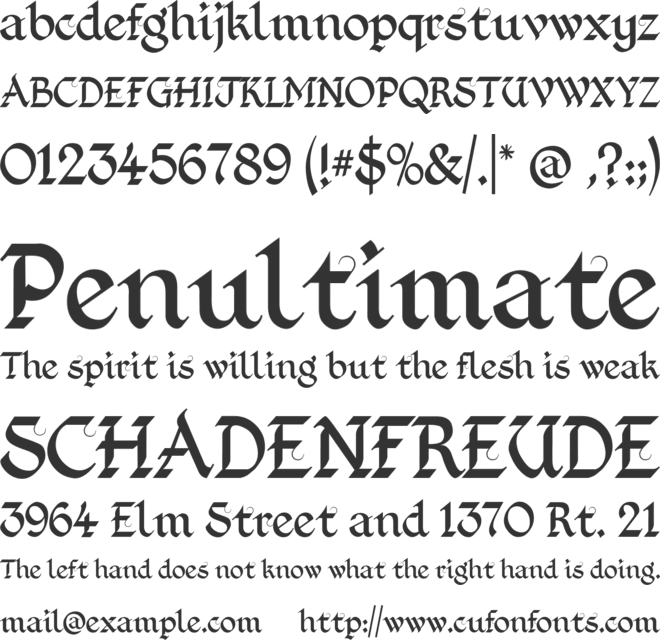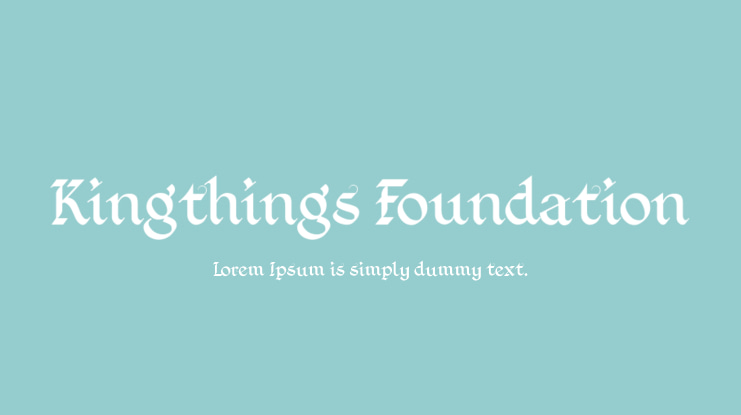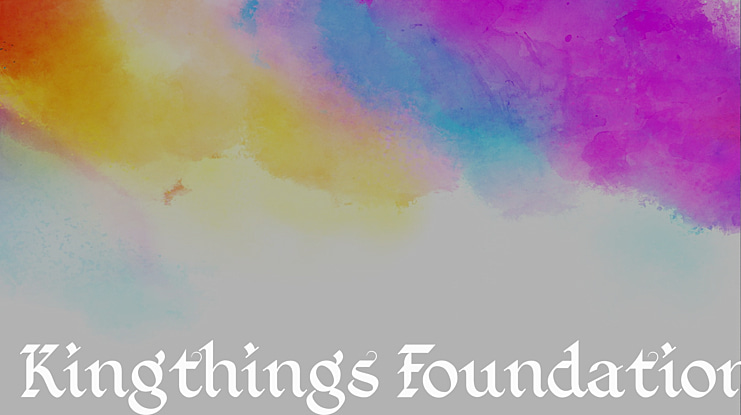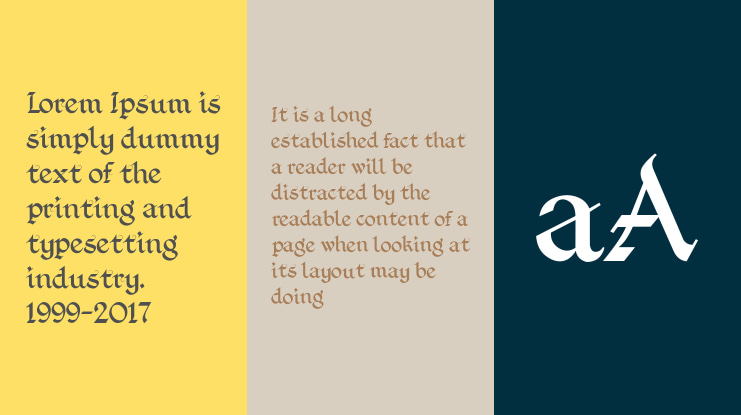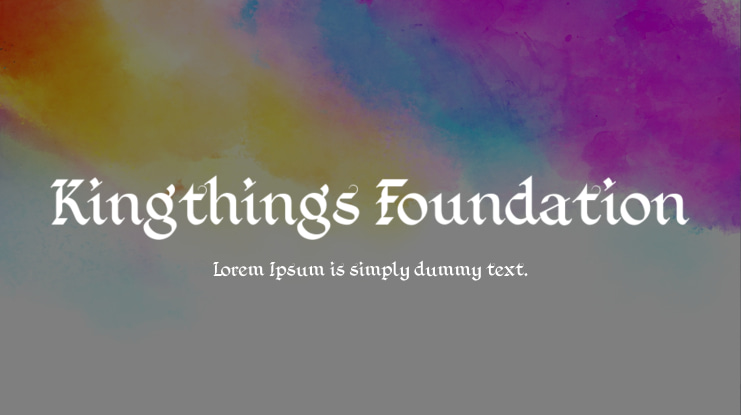
Kingthings Foundation Font
This was the first font I started, it has taken years to get even slightly finished. It is base upon the first Calligraphic foundation hand that I learned whilst at school... Holders and Reservoirs, Mitchell round hand pens and black Indian ink - Oooo! Luverly!